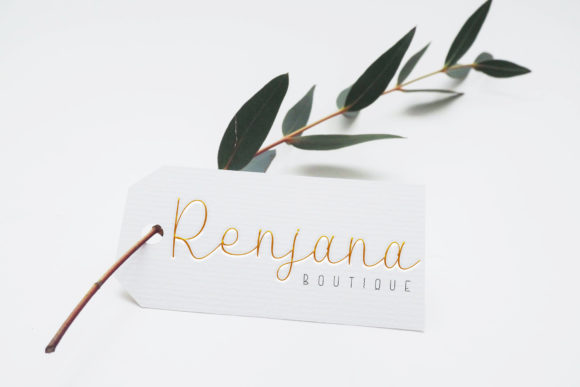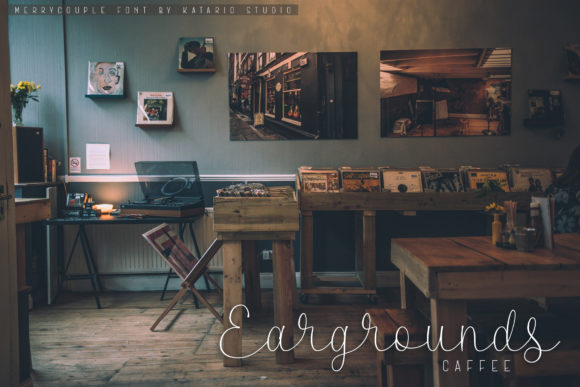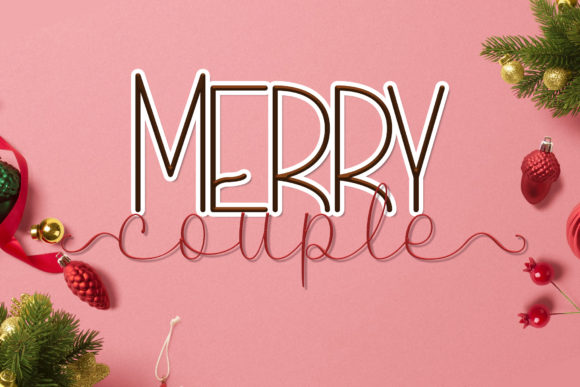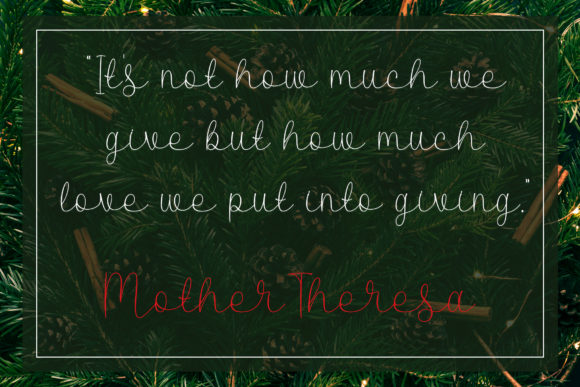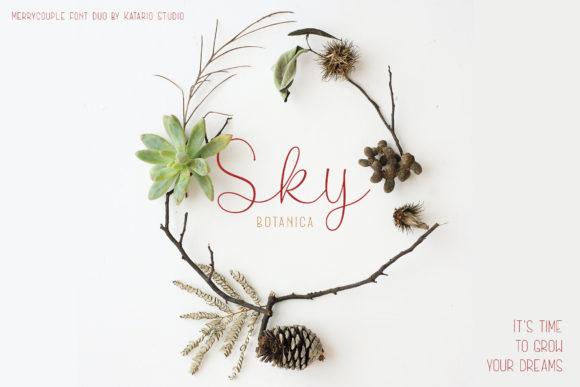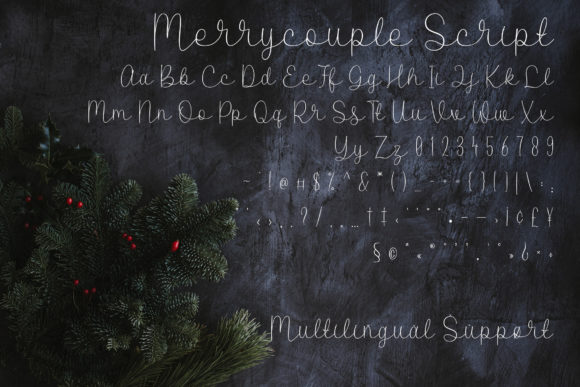
Introduction to Merry Couple Font
As you sit down to plan your next creative project, the perfect font can make all the difference in bringing your vision to life. For me, it’s often the little moments – like scribbling out a wedding invitation on a whim or designing a custom card for a loved one – that remind me just how much a well-chosen font can elevate a design.
That’s why I’m excited to share with you the Merry Couple Font, a sweet and delicate duo font that’s sure to add a touch of joy to any project. With its dainty handwritten and sans-serif styles, this font is the perfect choice for designers looking to add a romantic, personalized touch to their work.
Whether you’re working on a wedding invitation, a card, or any other design that requires a high-quality, transparent background, the Merry Couple Font is a valuable resource that’s sure to become a go-to in your design arsenal.
Key Features of Merry Couple Font
- High-quality design resource perfect for creative projects, weddings, and romantic occasions.
- Includes a range of characters and symbols, including alphabets, numbers, and special characters.
- Perfect for use in graphic design, digital art, and other creative projects where a unique and elegant font is required.
Honest Review: Merry Couple Font
As a designer, I’m always on the lookout for high-quality design resources to elevate my creative projects. Recently, I had the chance to work with the Merry Couple Font, and I’m excited to share my honest review with you.
Some of the key features of the Merry Couple Font include:
- A transparent background, making it easy to overlay on any image or design
- A high-quality, vector-based design that looks great at any size
- A range of stylish and playful characters that add a touch of whimsy to any project
⚠️ One of the limitations of the Merry Couple Font is that it may not be suitable for projects that require a more formal or serious tone. Additionally, the font may not be compatible with all operating systems or software.
Overall, I’m really impressed with the Merry Couple Font. It’s a great addition to any designer’s toolkit and can add a touch of personality to even the most mundane projects. Whether you’re working on a romantic wedding invitation or a fun greeting card, this font is sure to deliver.
Getting the Most Out of Merry Couple Font
To get the most out of the Merry Couple Font, consider the following tips: use it in conjunction with other high-quality design resources, experiment with different font sizes and colors, and use it to create visually appealing graphics for your social media or creative project.
The Merry Couple Font is ideal for a variety of use cases, including wedding invitations, social media graphics, and creative project materials. Its transparent background and high-quality design make it perfect for creating engaging and eye-catching graphics.